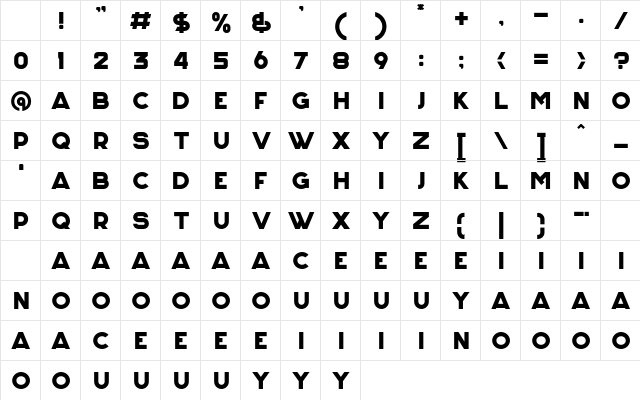
Overgrow is a composed and adaptable typeface that performs quietly and consistently across a wide range of design contexts.
Pro Tip: Use Overgrow in both headline and body roles to test its range before committing to a single application.